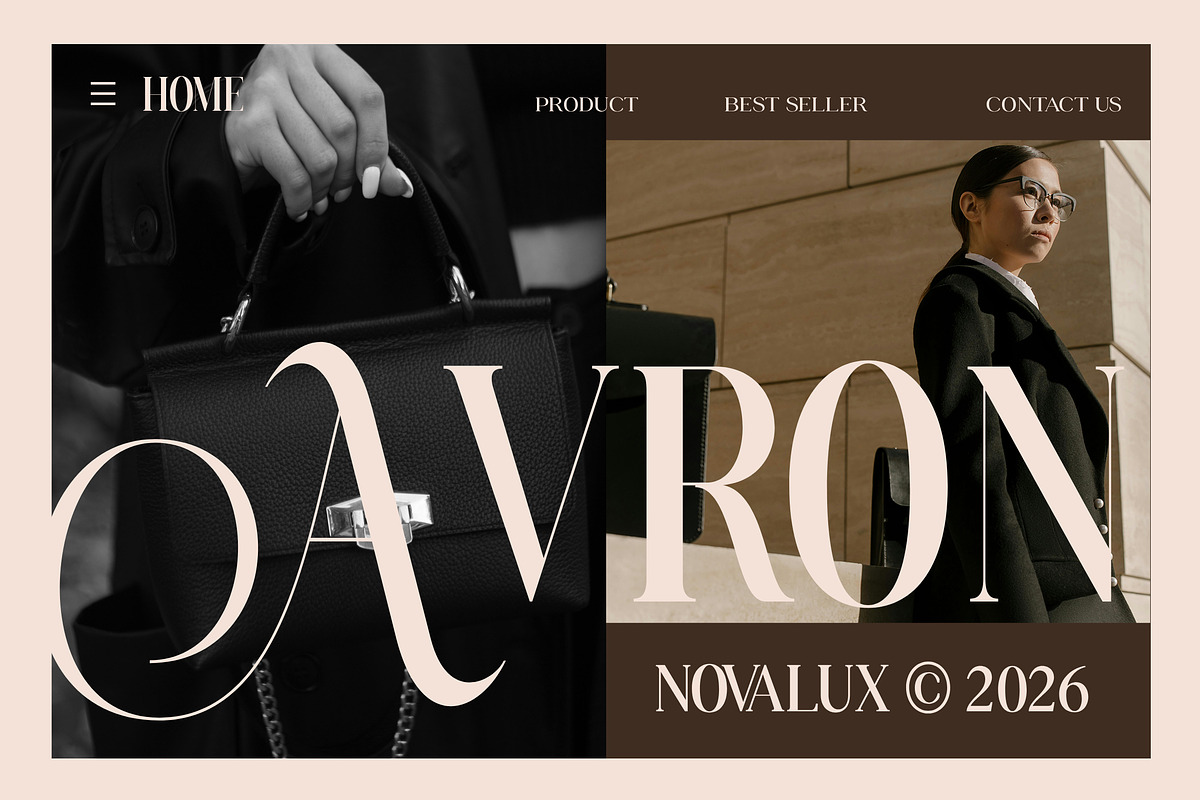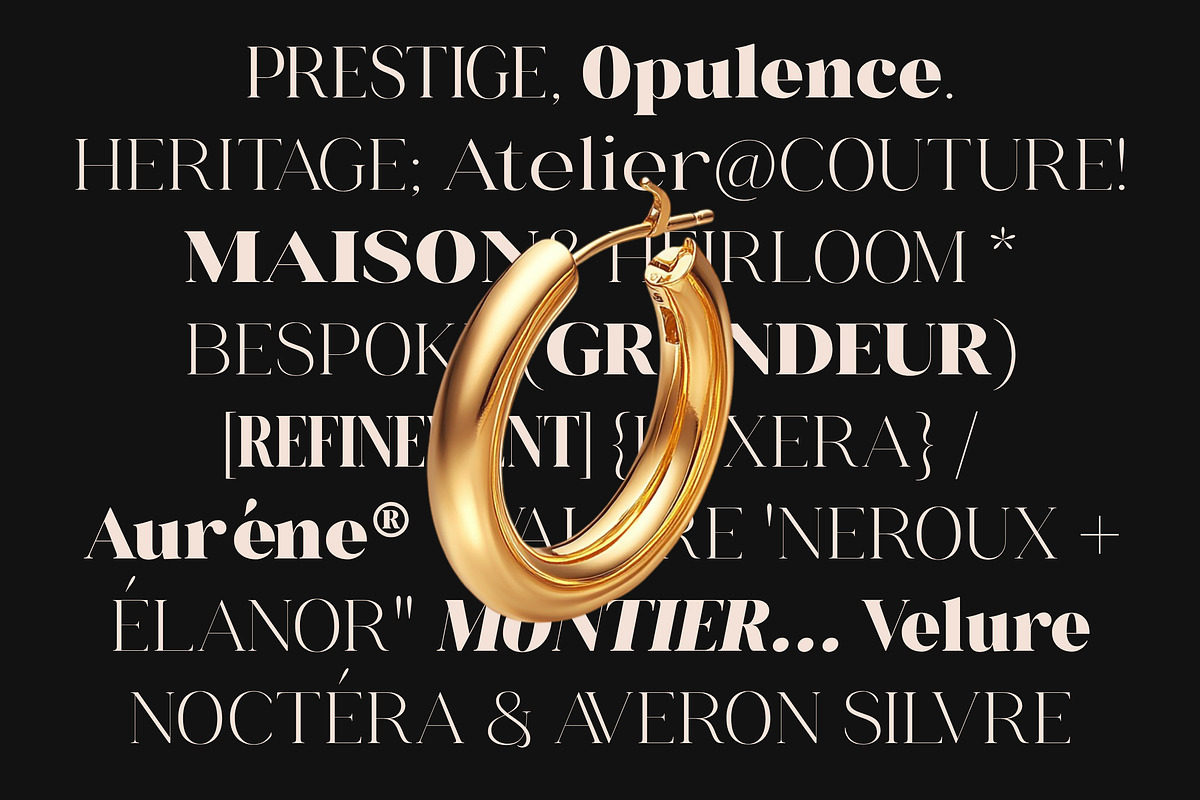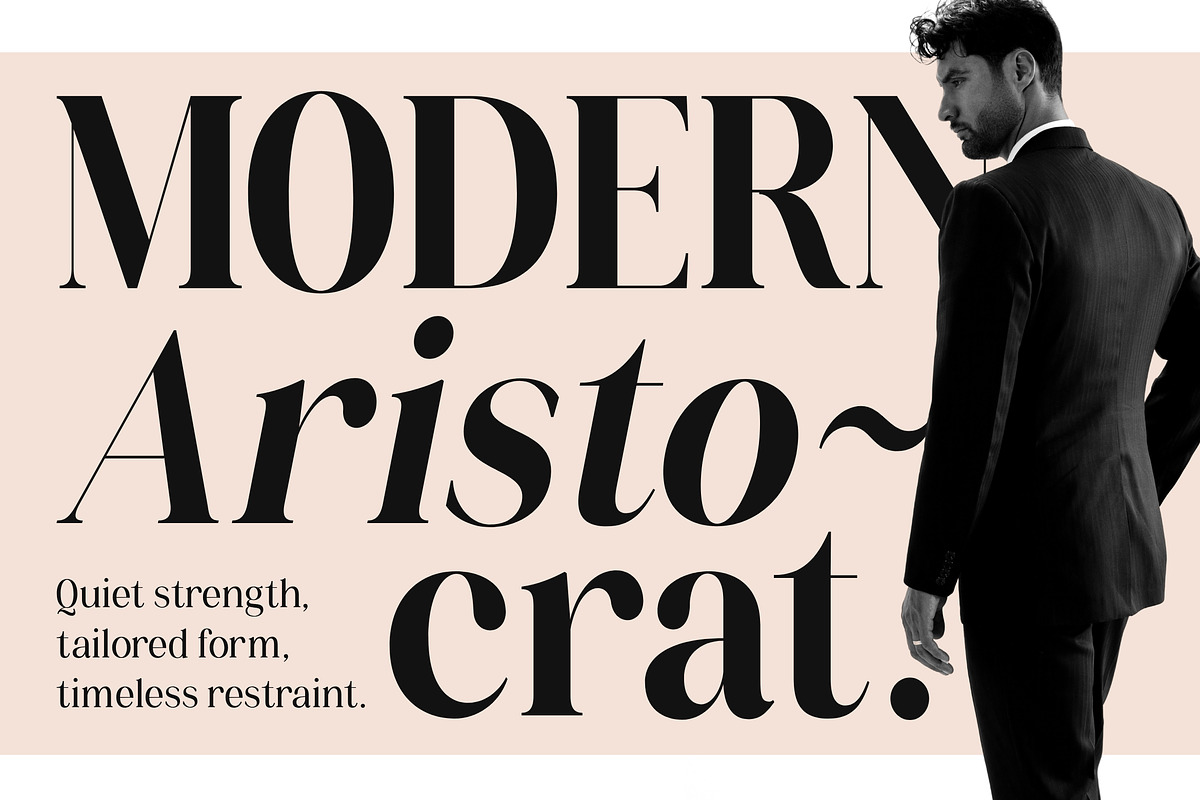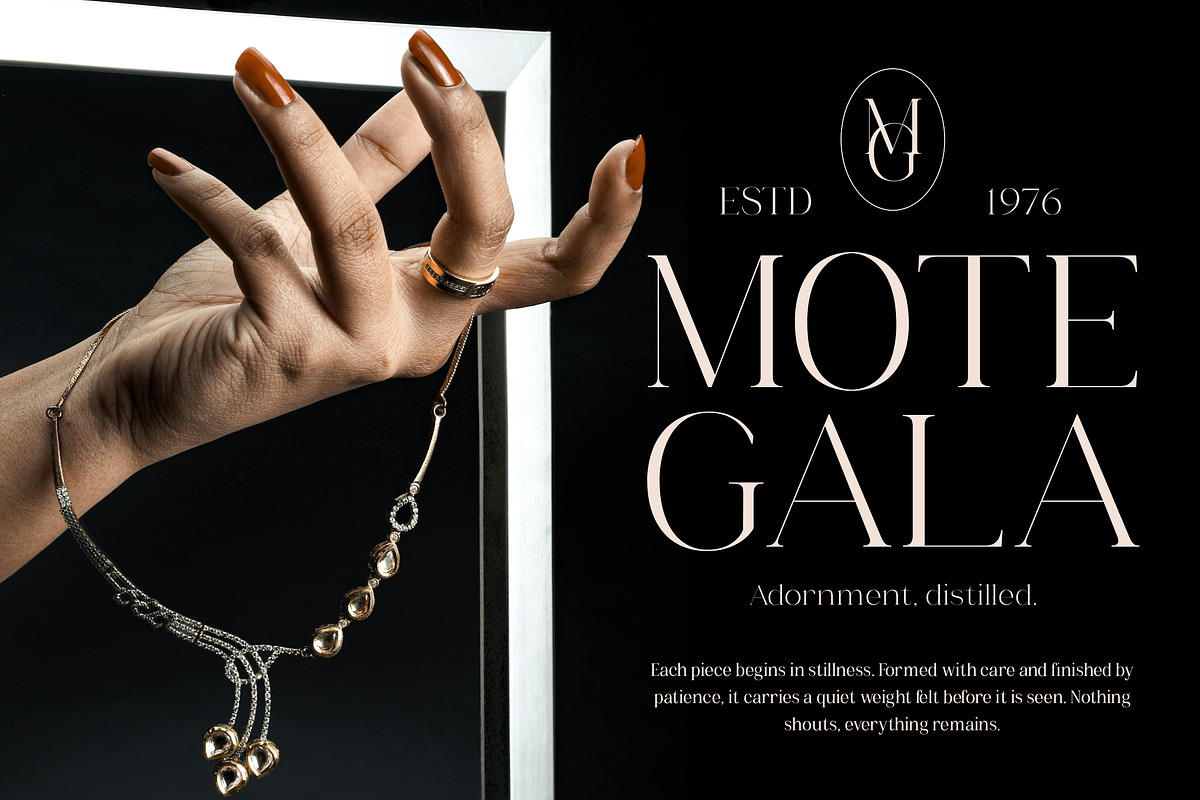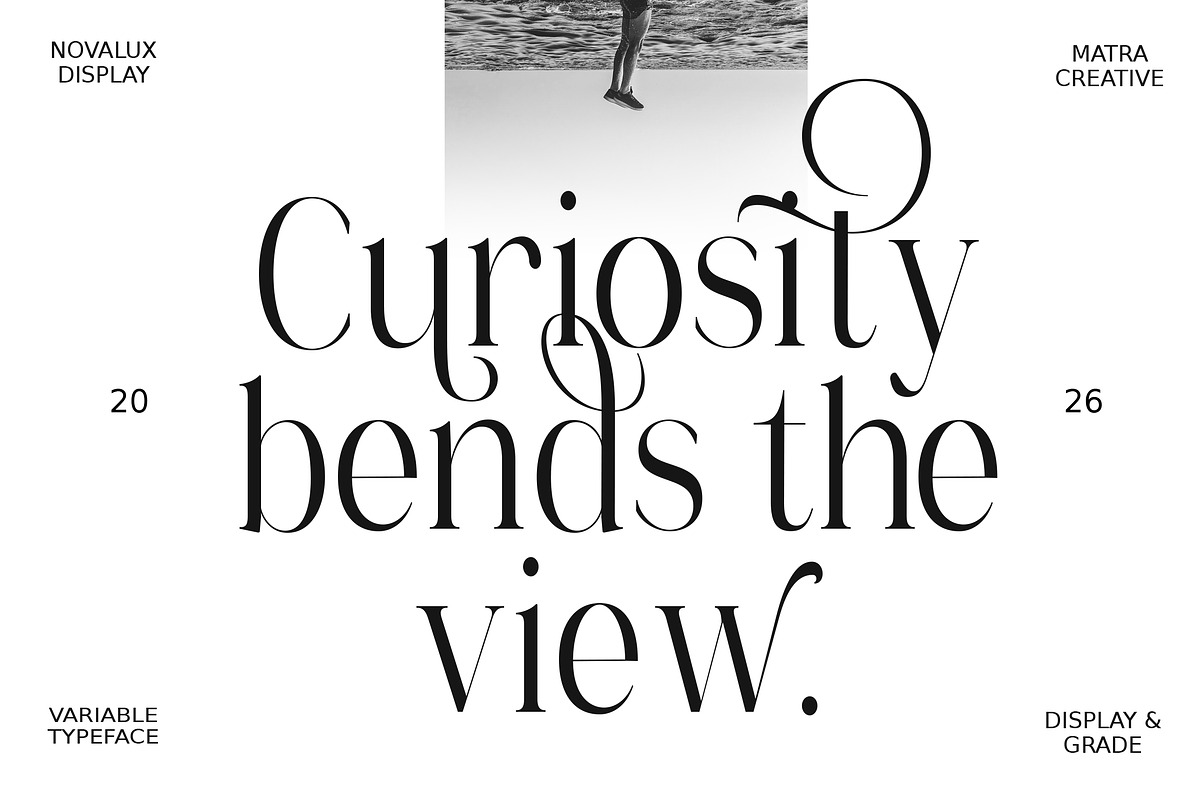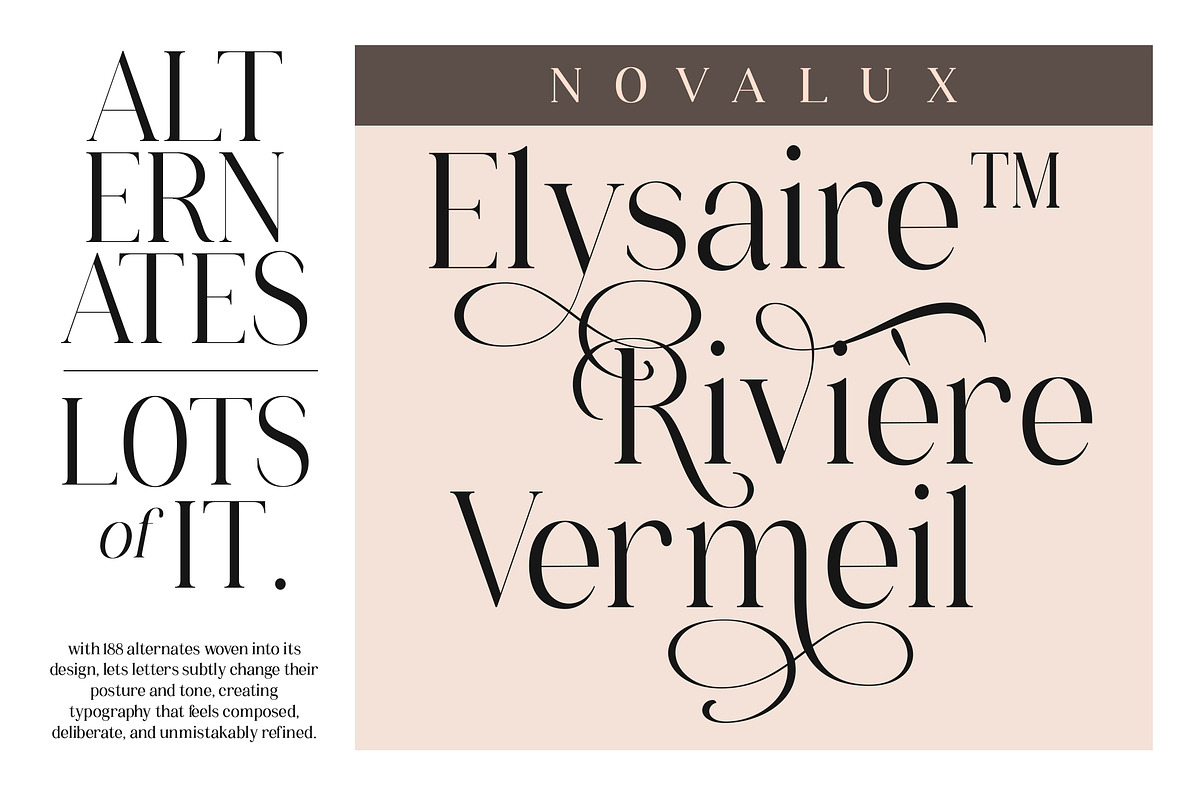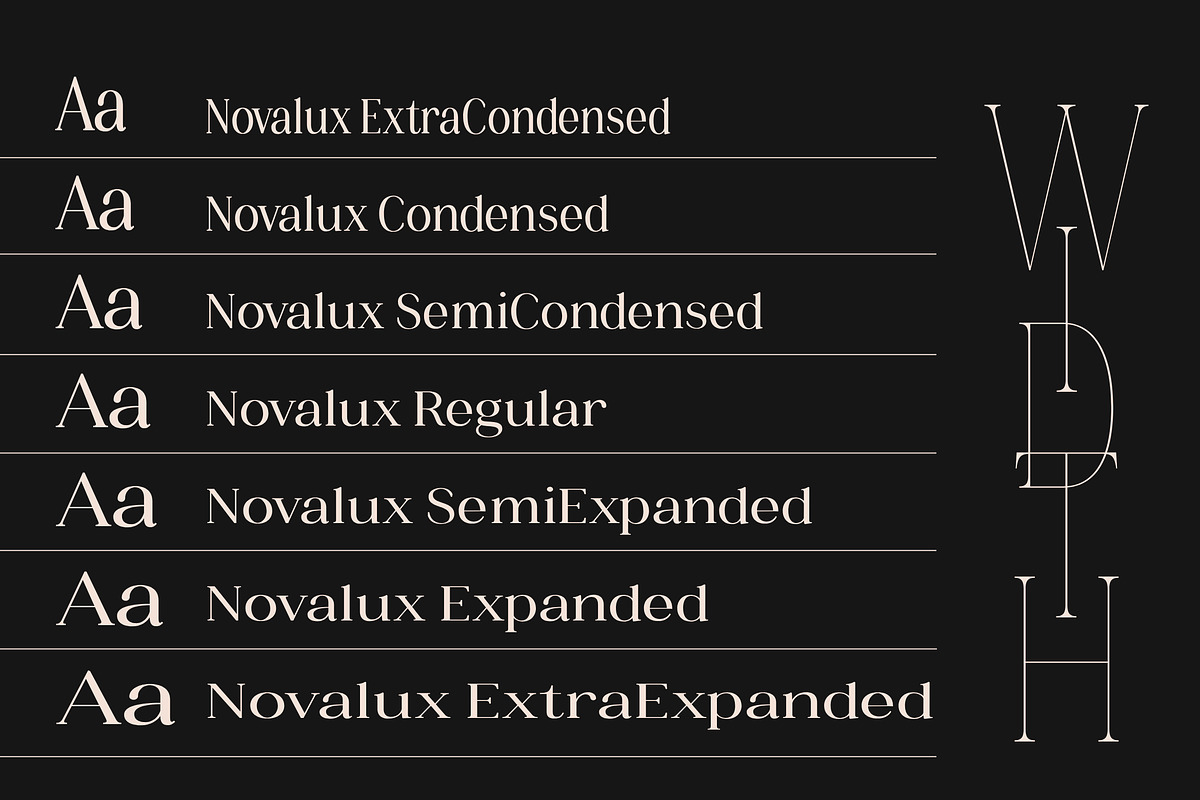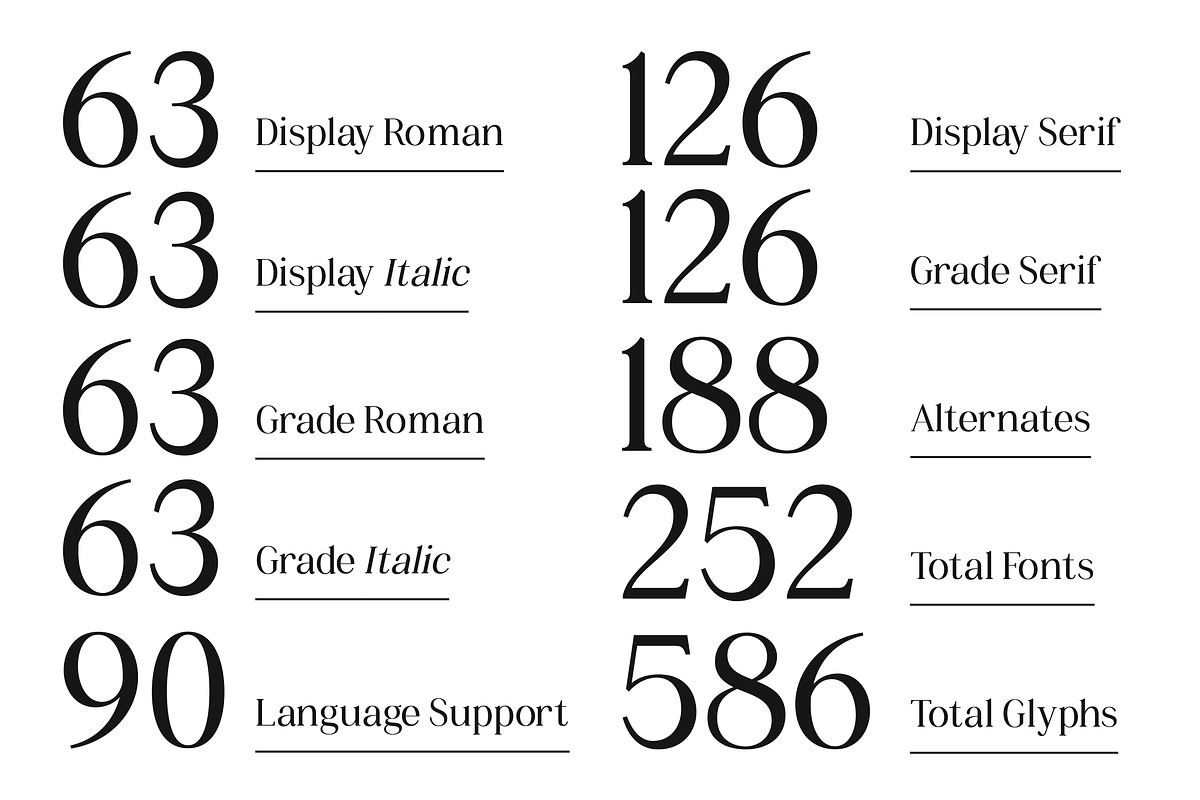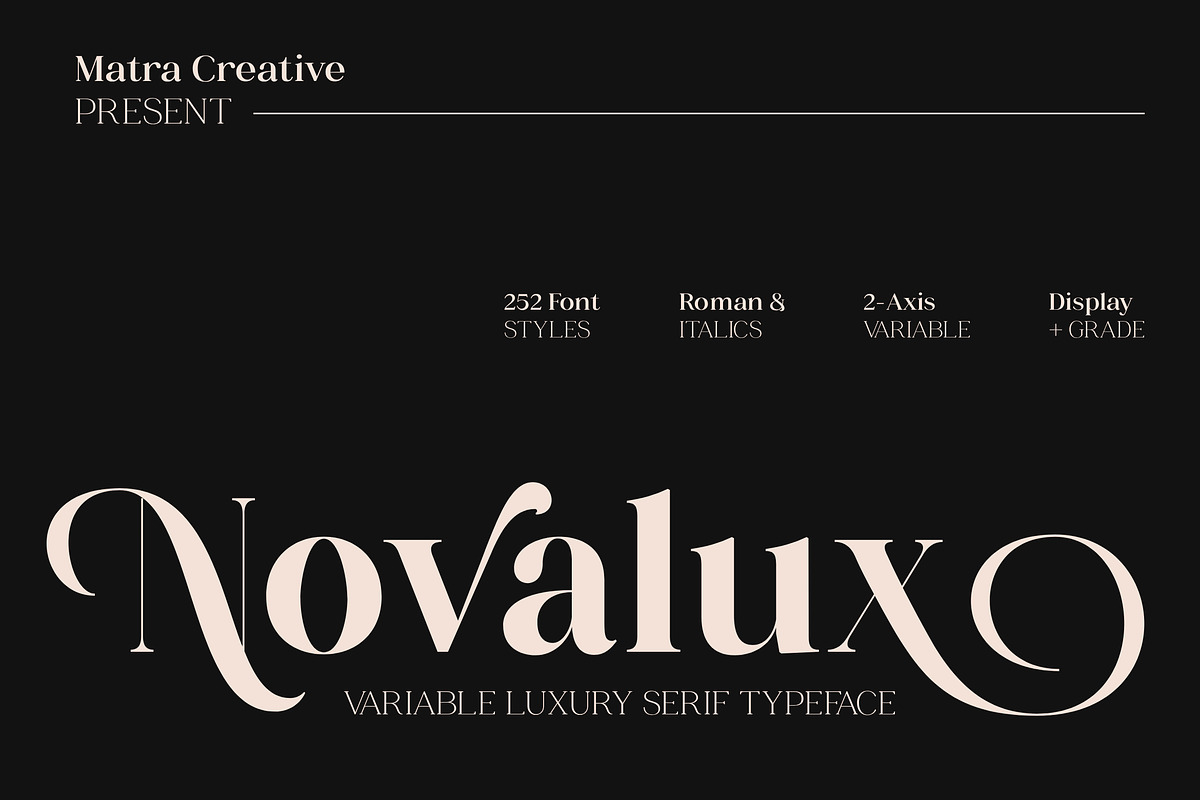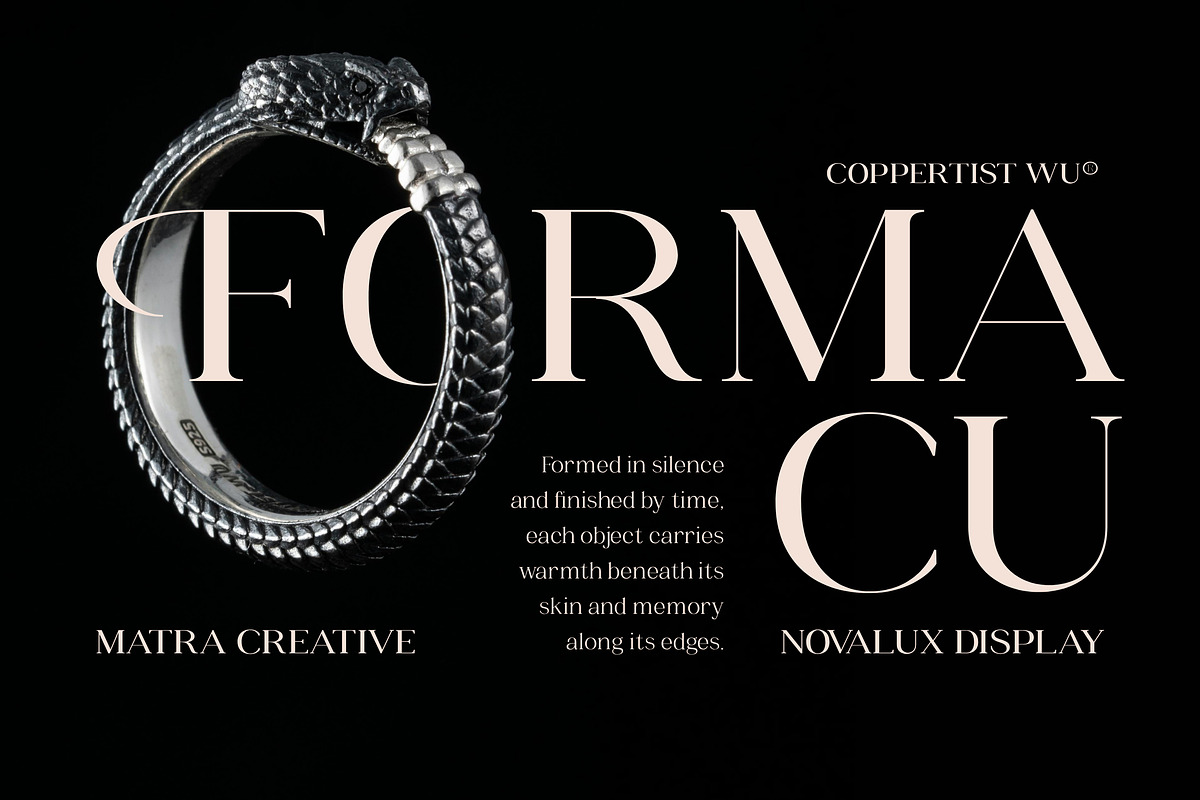
Novalux
Novalux is a luxury variable serif typeface that seamlessly blends timeless elegance with modern versatility. Designed to meet the demands of high-end visual communication, Novalux features an extensive family of 252 styles, including both Roman and Italic, supported by a powerful two-axis variable system that offers designers complete control over typographic expression. Whether used for bold, glamorous headlines or refined editorial layouts, Novalux adapts effortlessly to a wide range of creative contexts.
Its delicate serifs, balanced proportions, and carefully crafted details evoke a sense of exclusivity, sophistication, and prestige. Novalux is particularly well suited for logos, magazines, premium packaging, and luxury branding projects where refinement and character are essential. More than just a typeface, Novalux is a versatile design tool created to elevate visual identity and bring a distinctive touch of luxury to every project.